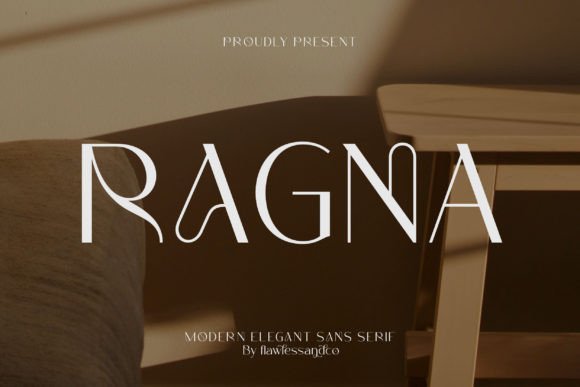
Introducing "Ragna" - the epitome of modern elegance in the world of fonts. Crafted by the talented team at Flawless And Co., this sans serif font is more than just a typographic masterpiece. It's a gateway to a world of refined sophistication and boundless creativity.
With its clean lines and minimalist design, "Ragna" effortlessly captures the essence of contemporary style. Each character is meticulously crafted to perfection, ensuring a seamless and visually striking reading experience. But that's not all - this font goes above and beyond, offering a plethora of alternatives and ligatures that will take your designs to new heights.
Searching for the perfect font for your next project? Look no further than "Ragna." It is optimized for the letter "R," making it the go-to choice for any design that demands excellence and precision. Whether you're creating a logo, branding materials, or a stunning website, "Ragna" will bring a touch of individuality and elegance to your work.
But what truly sets "Ragna" apart is its ability to evoke emotions and captivate your audience. Each letter has been carefully crafted to convey a sense of refined grace and style. Its sleek and sophisticated appearance will instantly catch the eye and leave a lasting impression on anyone who lays eyes on your creations.
Don't settle for ordinary fonts when you can have "Ragna" - a font that embodies the perfect blend of modernity, elegance, and individuality. Let your designs speak volumes with its captivating presence. Download "Ragna" today and unlock a world of limitless possibilities.